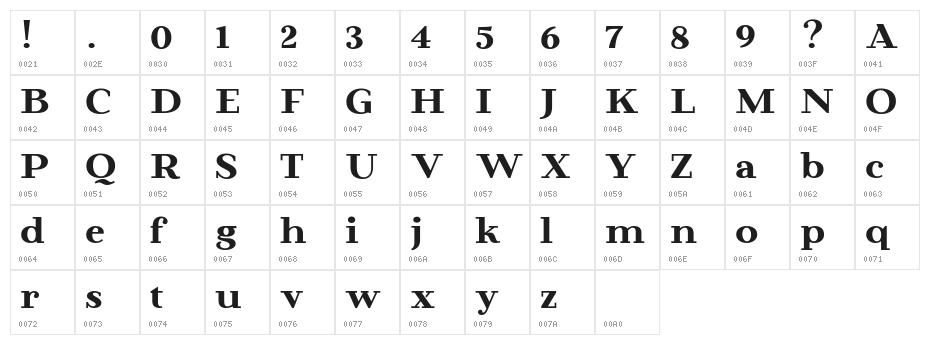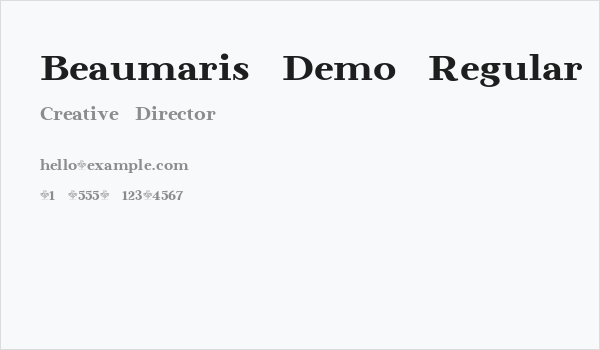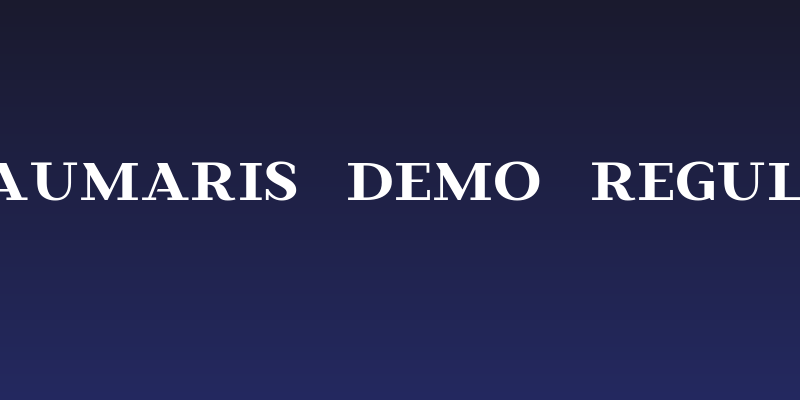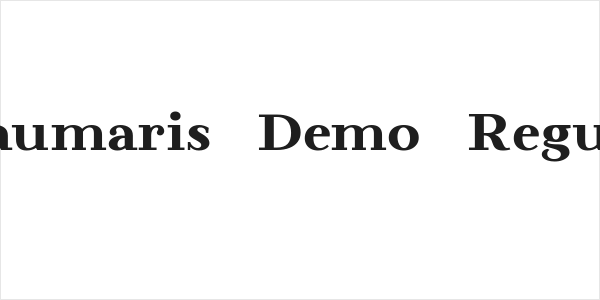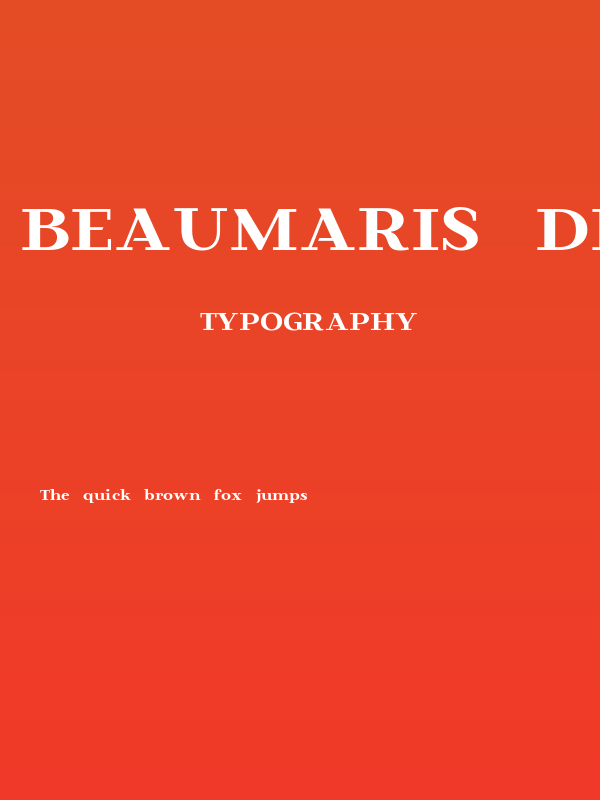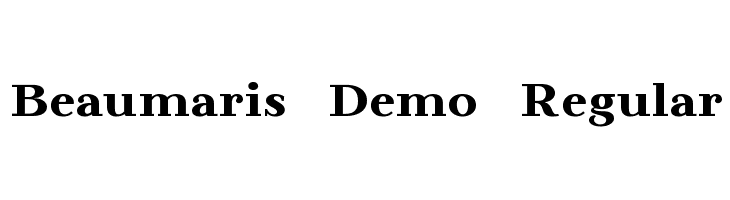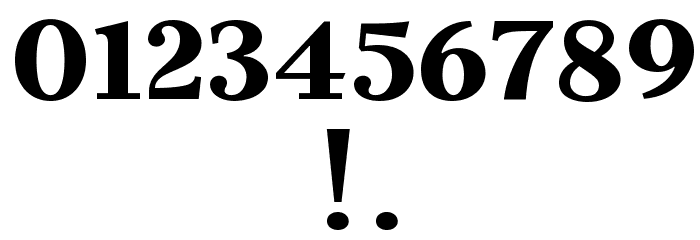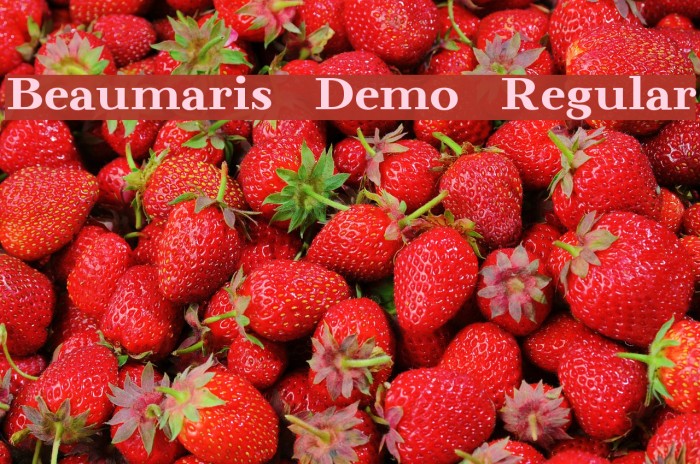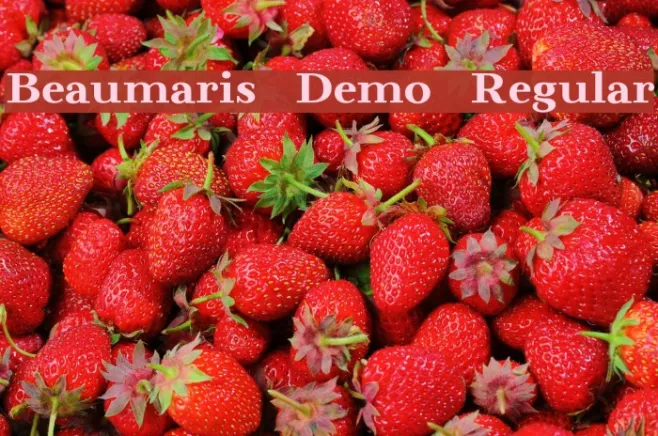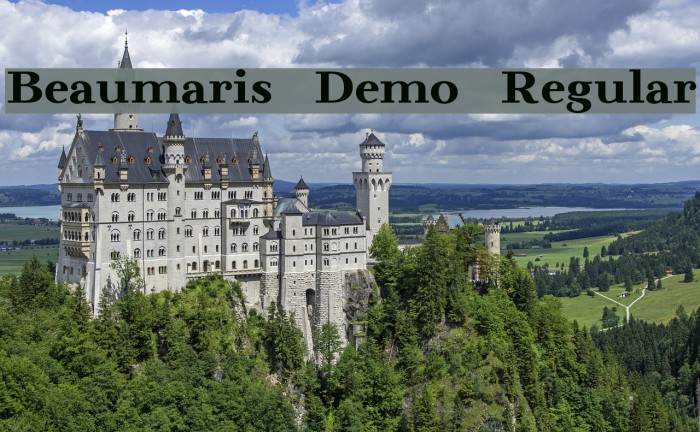
Beaumaris Demo Regular Font
Beaumaris Demo Regular Description
This font features a classic serif design with a strong presence and elegant curves. The uppercase letters are bold and commanding, while the lowercase letters maintain a consistent style with slightly rounded edges. The numerals are well-proportioned, offering a balanced look that complements the alphabetic characters. The font includes a limited set of special characters, maintaining the overall aesthetic. Its design is suitable for both traditional and modern applications, providing versatility in various contexts.
| Proposed Projects | Ideal for book covers, editorial design, branding, and formal invitations. |